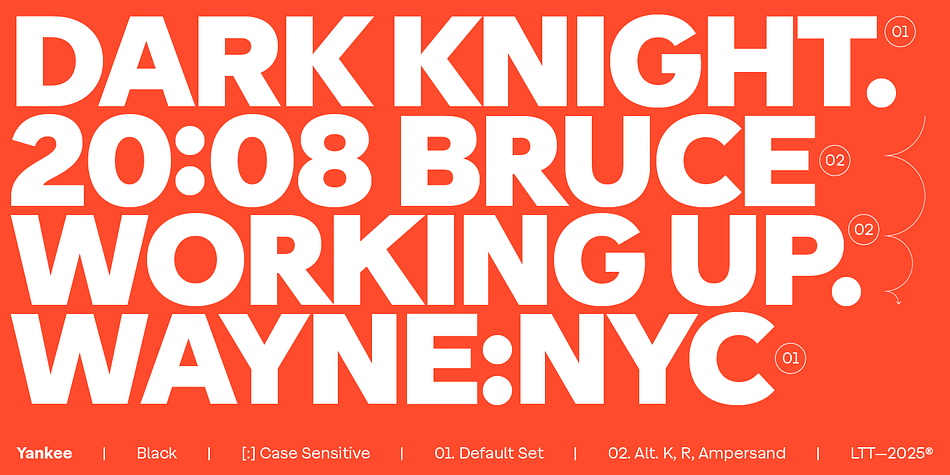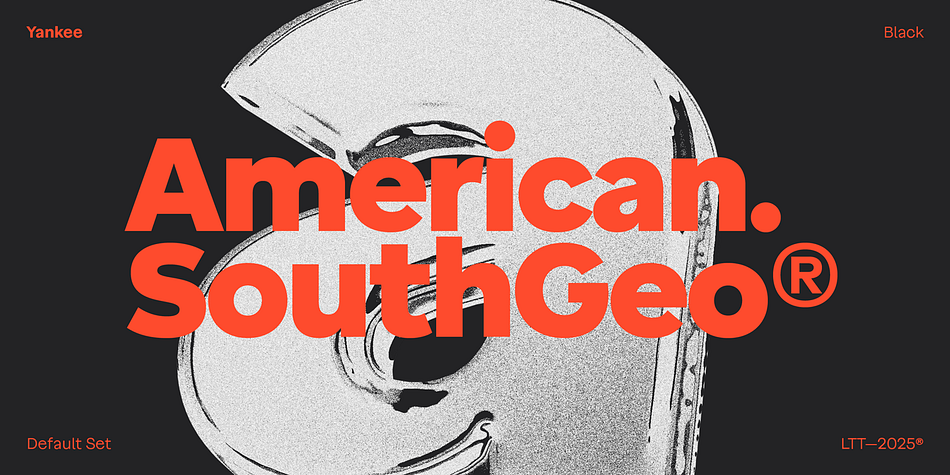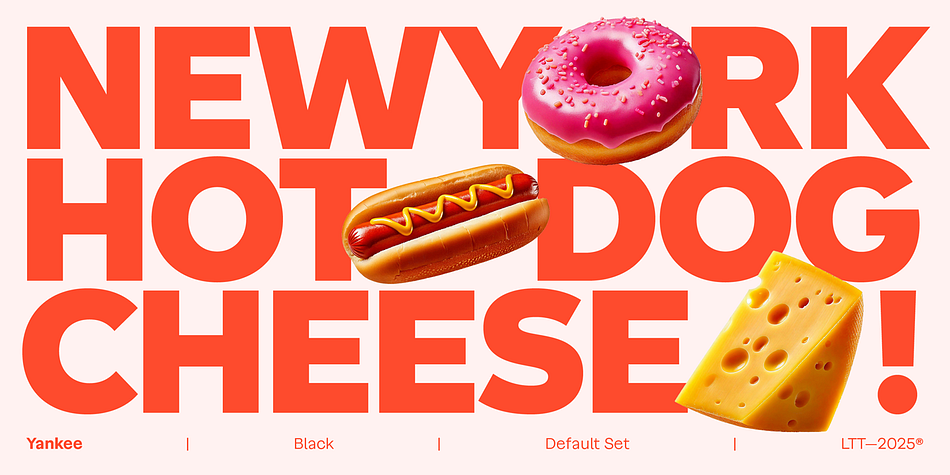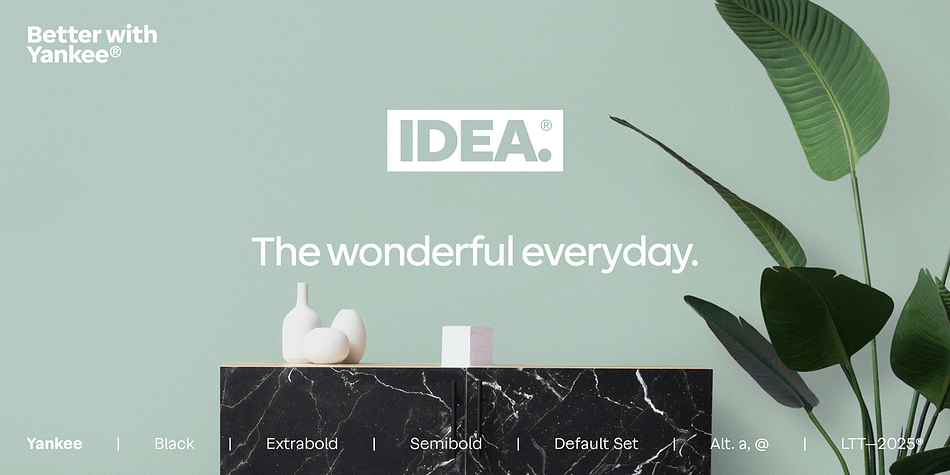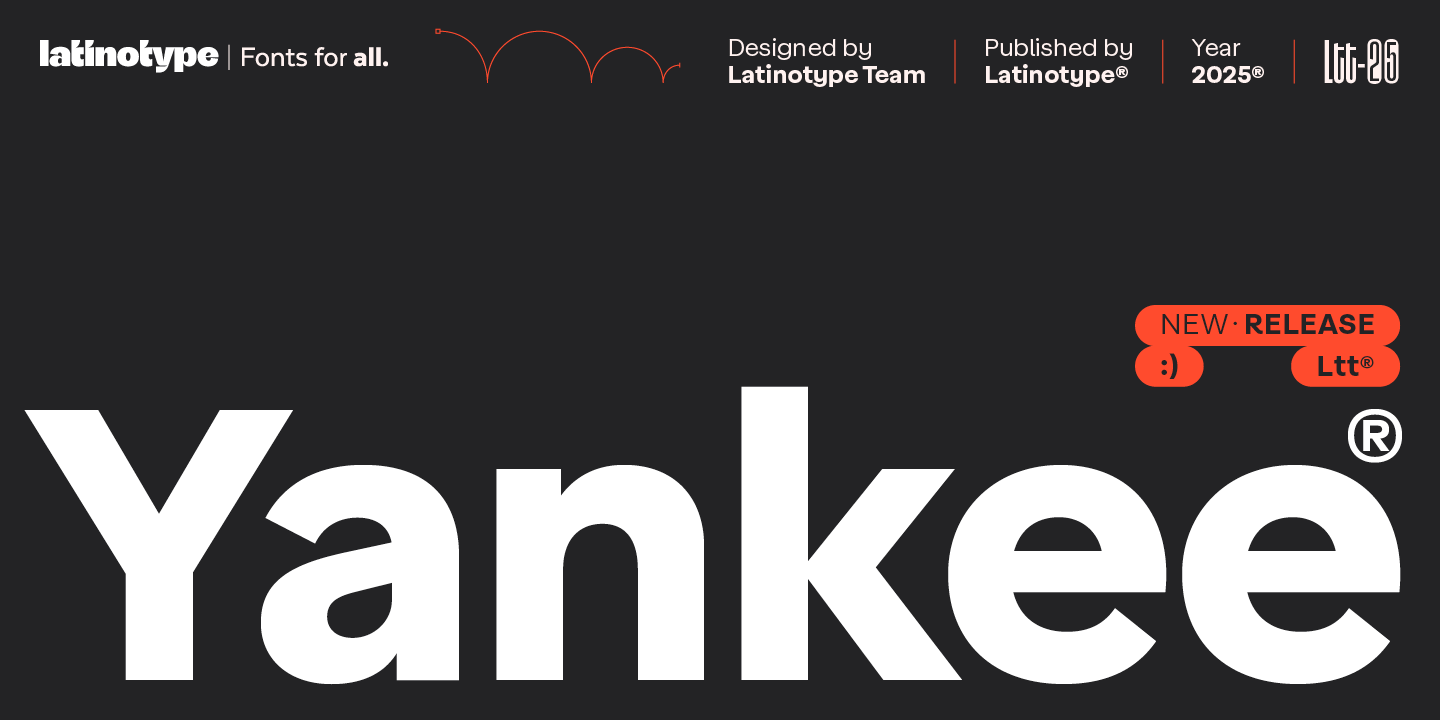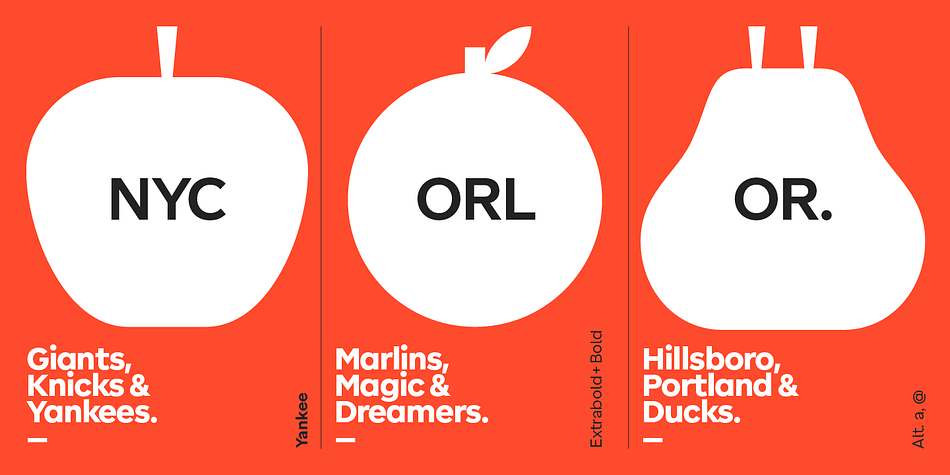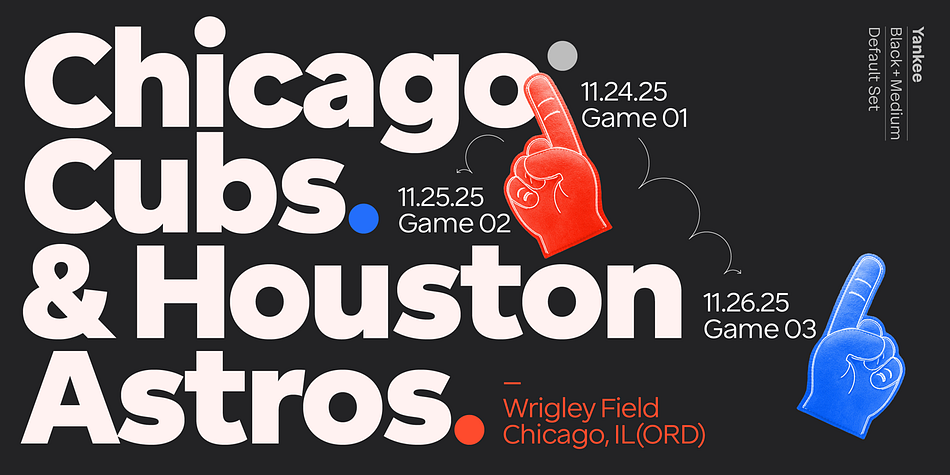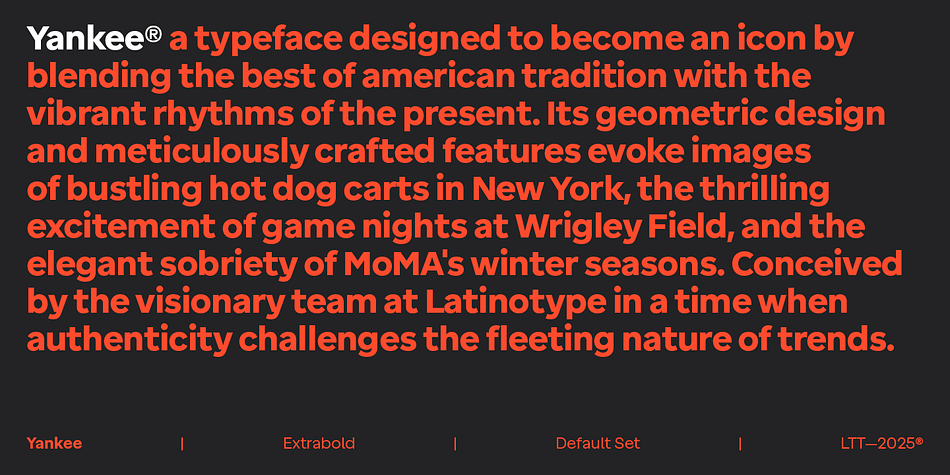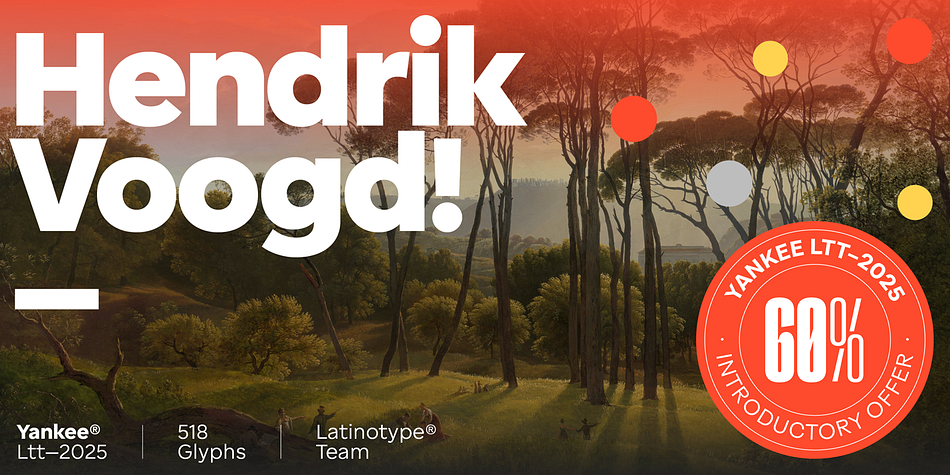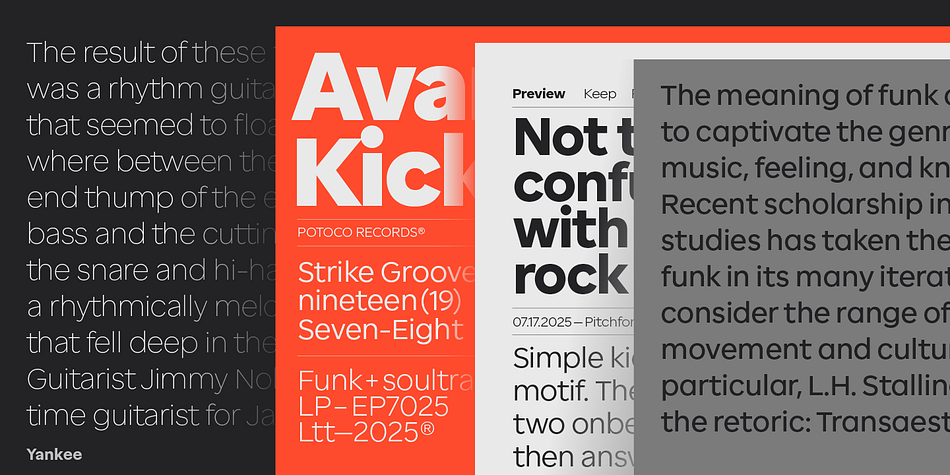
Yankee
Designed by Latinotype Team, Yankee is a sans serif font family. This typeface has eighteen styles and was published by Latinotype.
Step into a new era with Yankee, a typeface destined to become a modern classic, blending the essence of american tradition with the pulse of contemporary life. Its geometric precision and meticulously crafted details conjure vivid scenes: the bustle of New York hot dog carts, the electrifying energy of game nights at Wrigley Field, and the understated elegance of winter exhibits at MoMA. Created by the visionary team at Latinotype, Yankee emerges in a time where authenticity and fleeting trends collide, seamlessly bridging the timeless and the contemporary.
Whether featured in a museum exhibition or on the sleeve of a nostalgic funk vinyl, Yankee feels right at home. Its bold, clean lines and balanced proportions effortlessly unite tradition and modernity. With 9 weight options, each accompanied by an italic version, it ensures both impeccable legibility and striking visual impact.